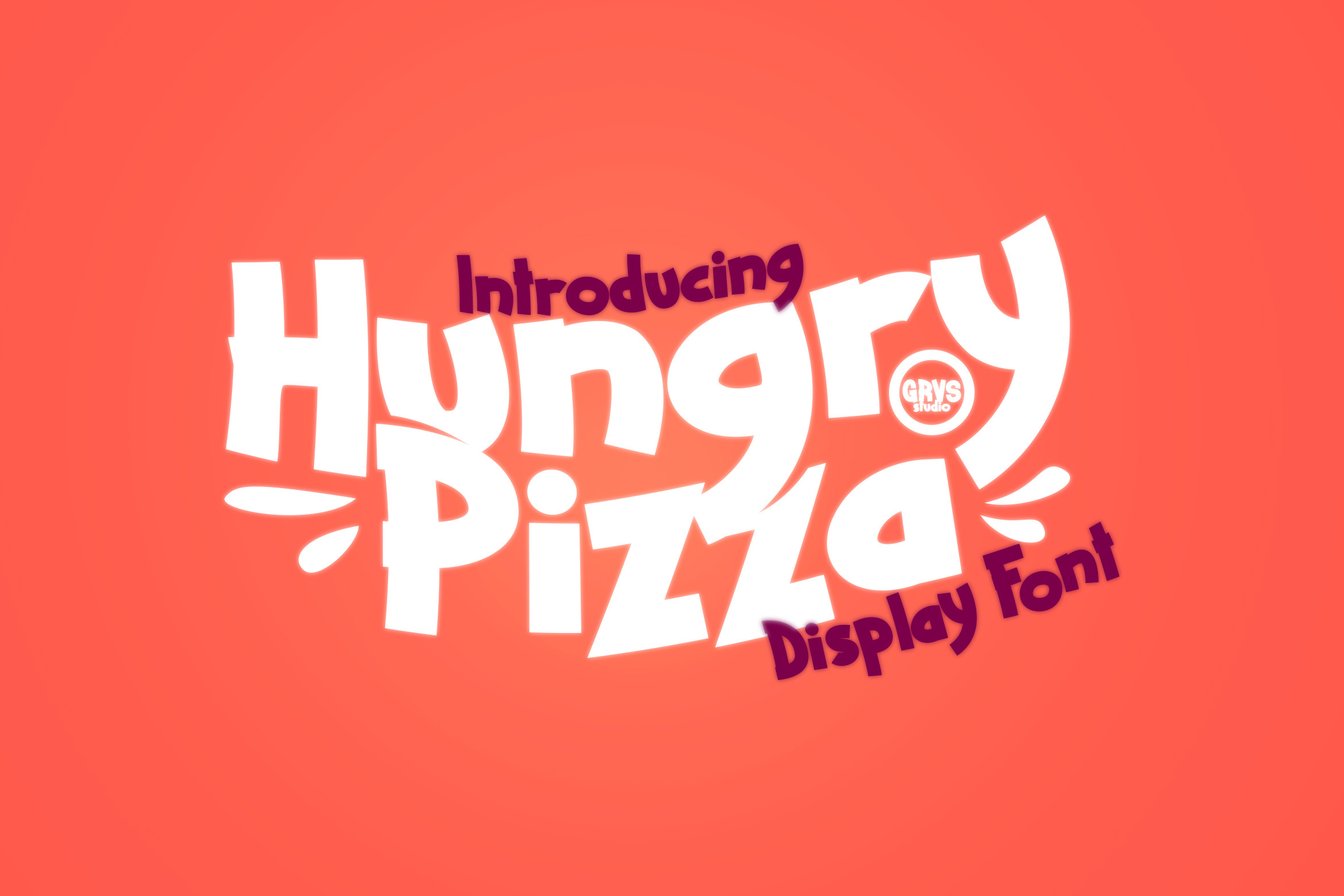
Hungry Pizza Display Font
GRVS Hungry Pizza Font is our new item that is suitable for your Bussines, Food, and beverages, or Restaurant logo.
Great for Logo, Sticker, Jersey, Invitation Card, Brochures, etc.